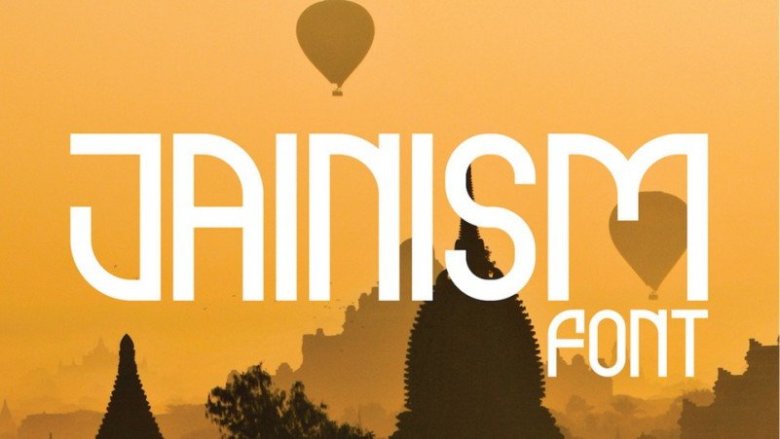
Jainism Display Font feels playfully nostalgic and delivers an incredible vintage aesthetic. a free experimental font designed by Spenser and Nathan Dawdy, inspired by Devanagari scripts, Indian signage, and Art Deco. Intended as a display font and not for extended body text it contains only upper case letters and numbers, though in multiple weights and styles.